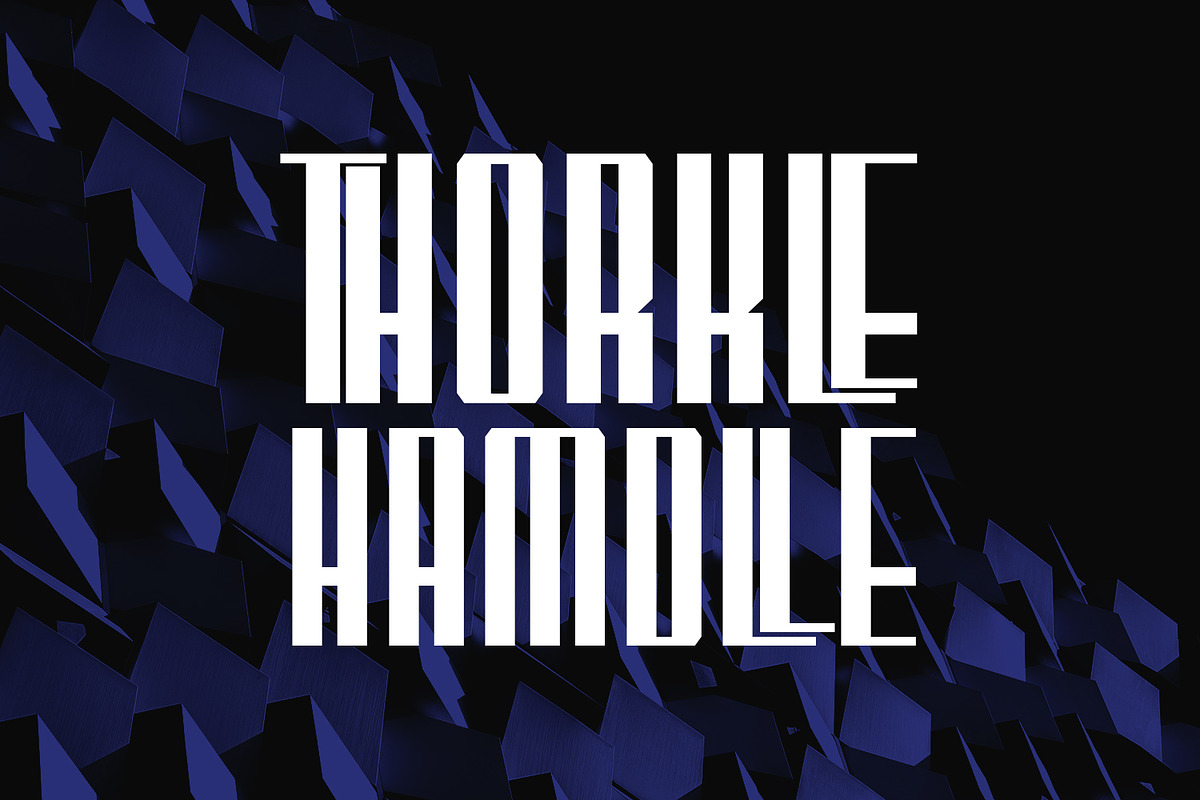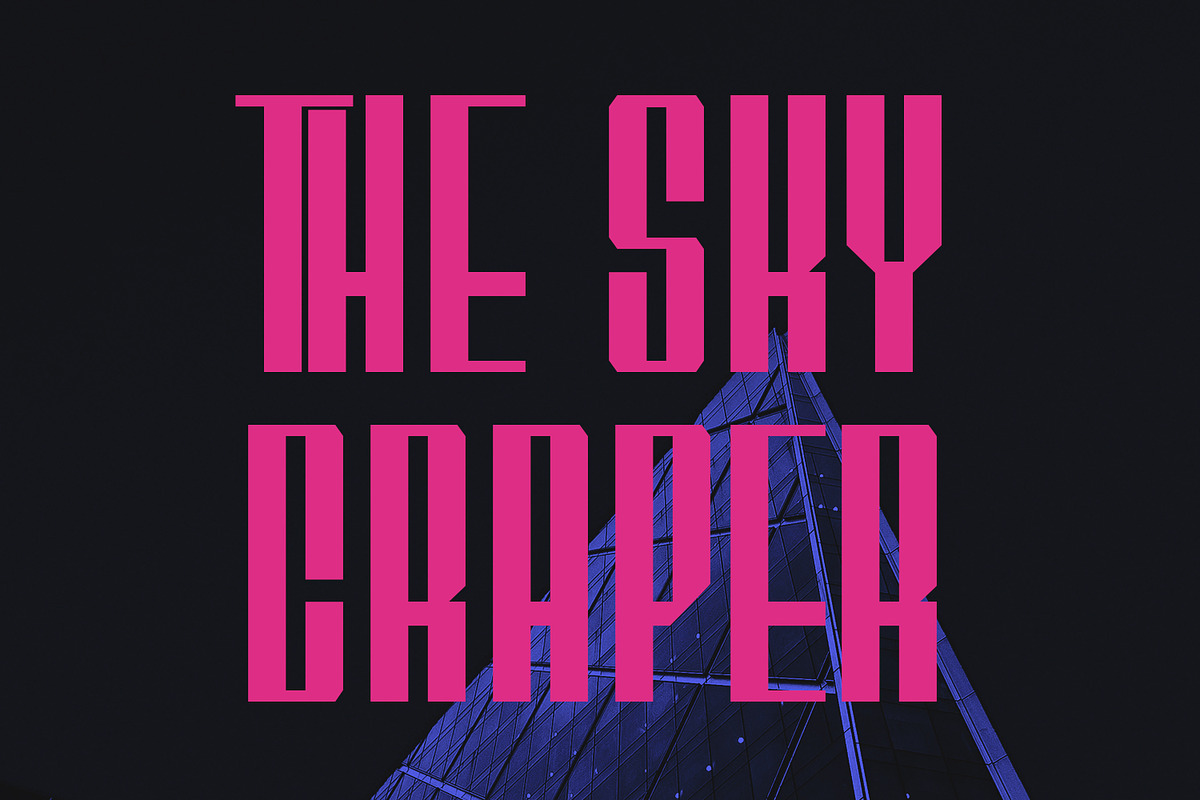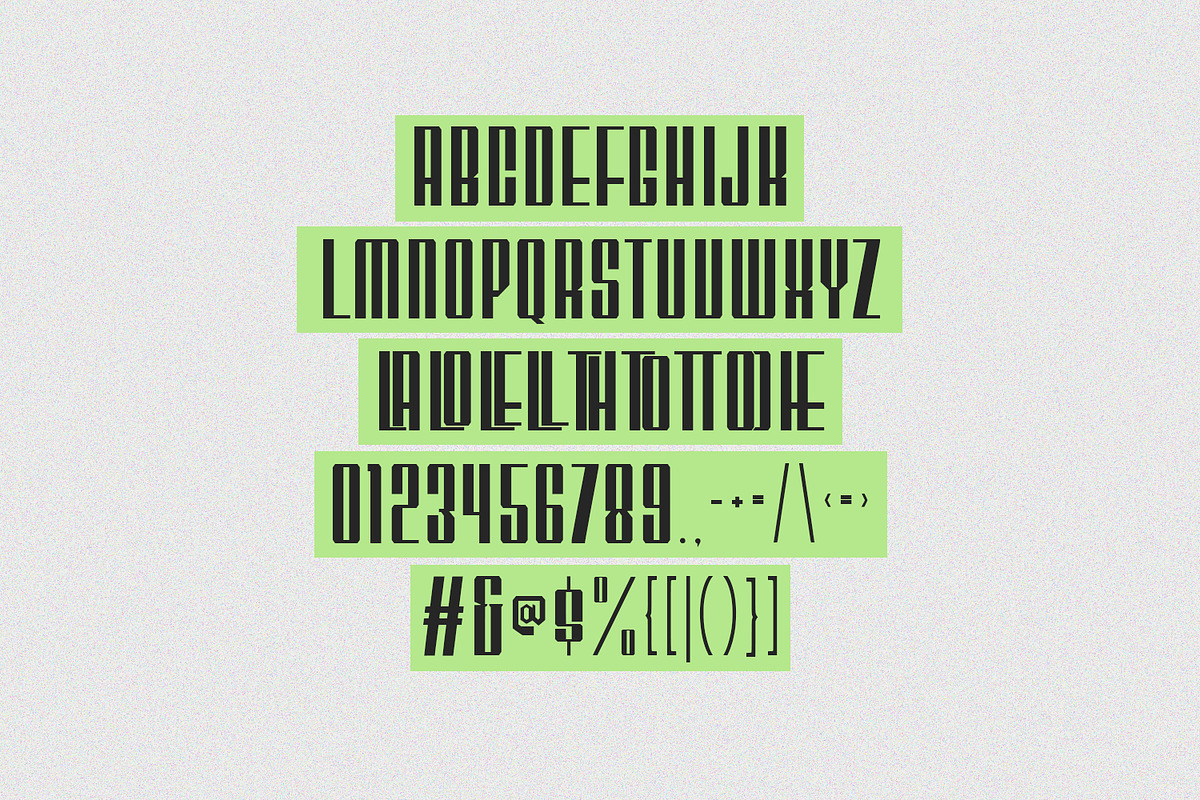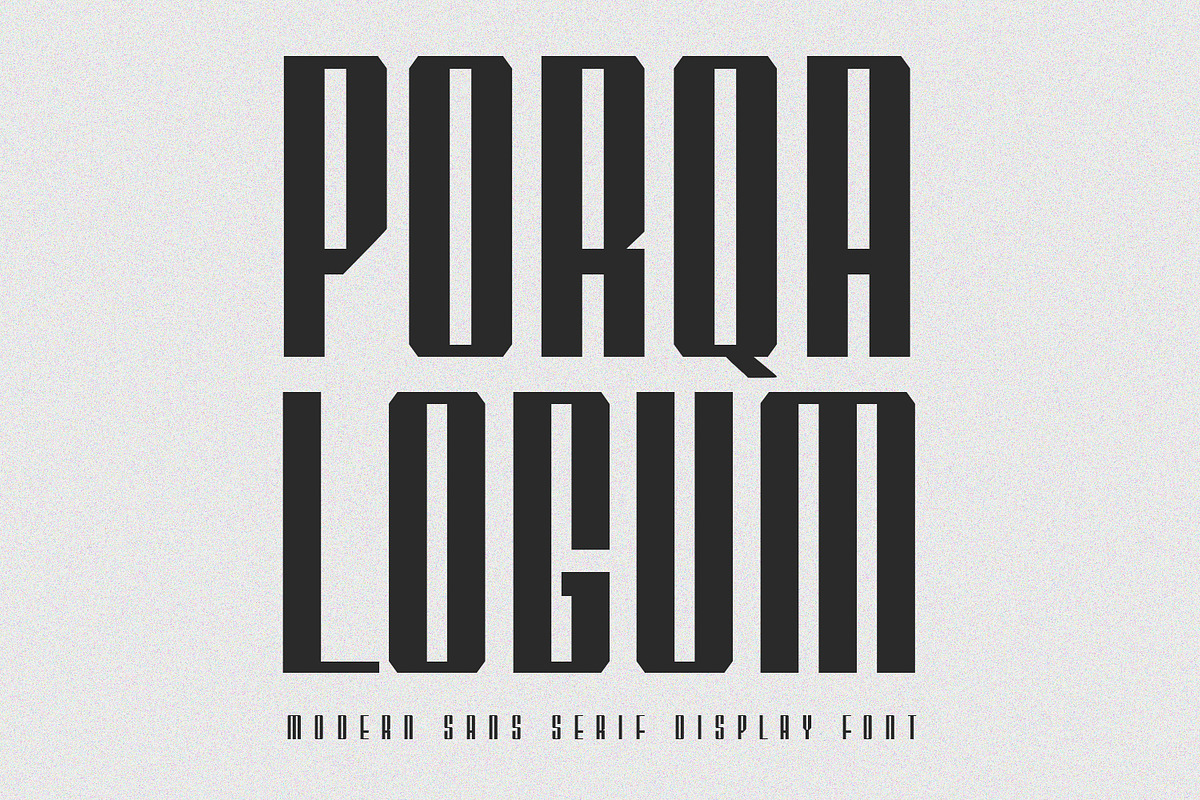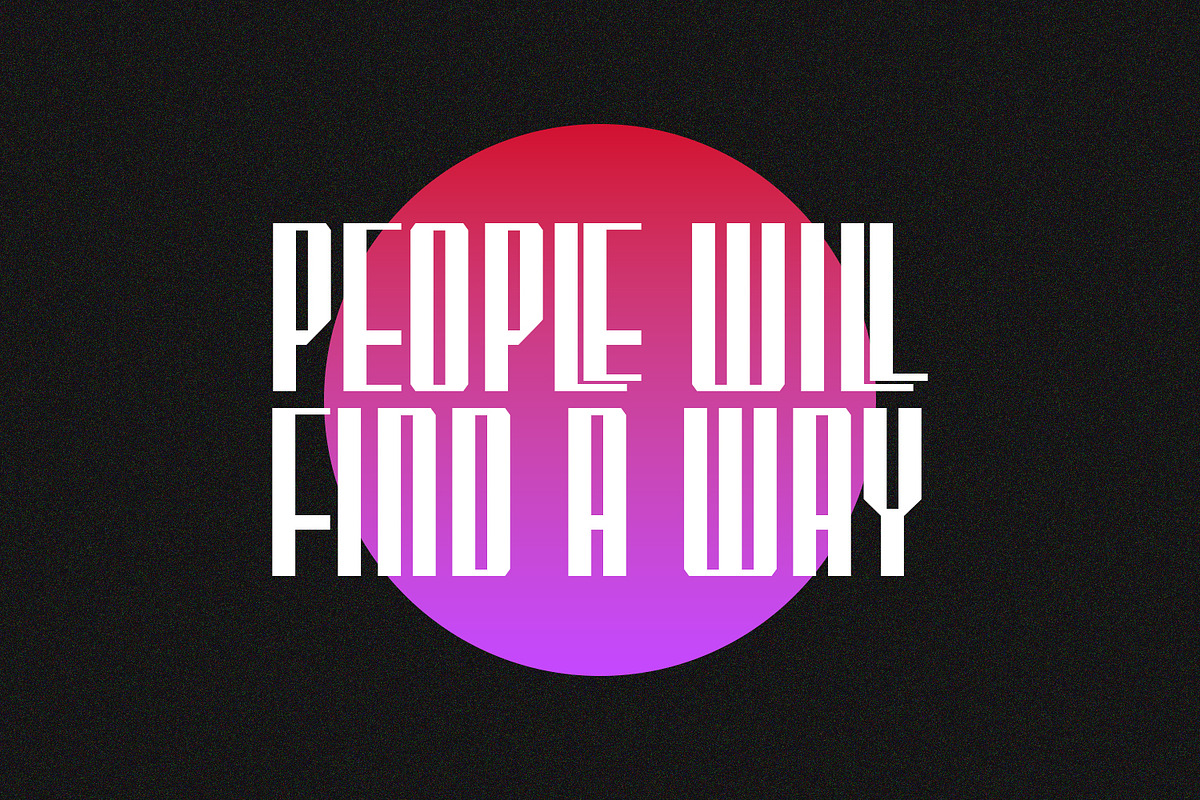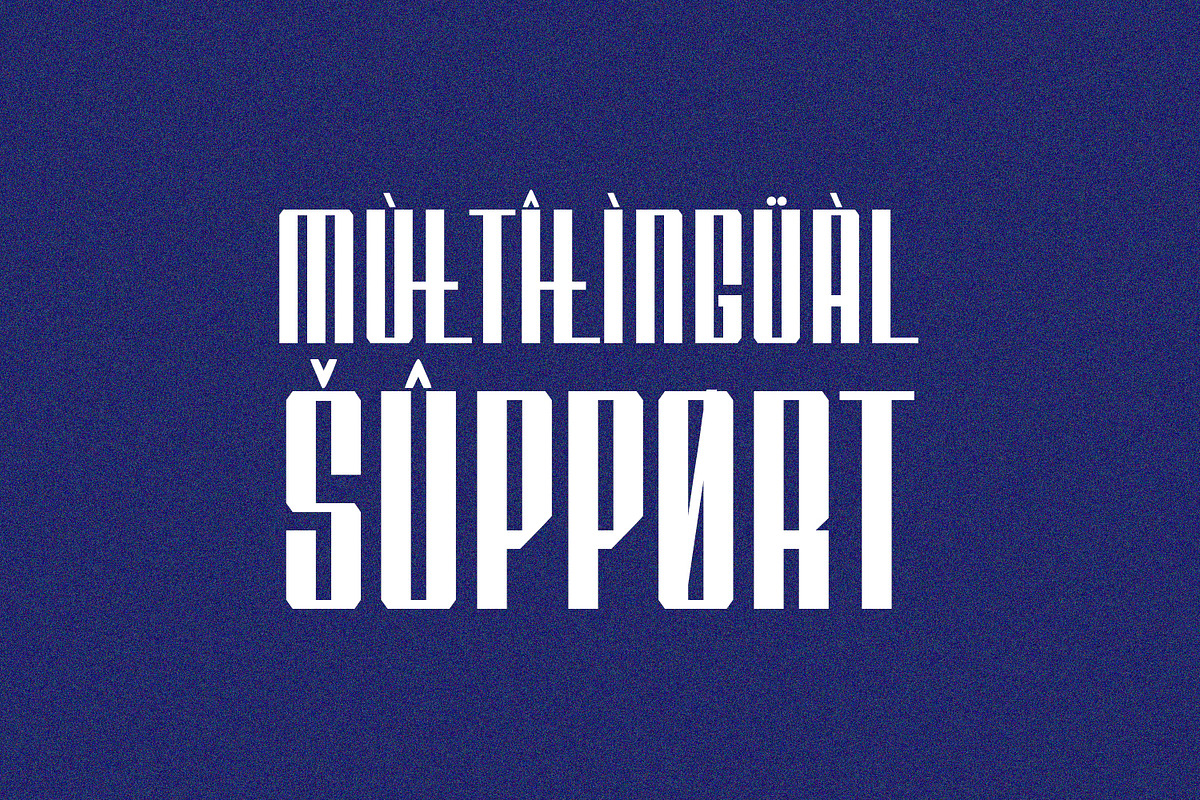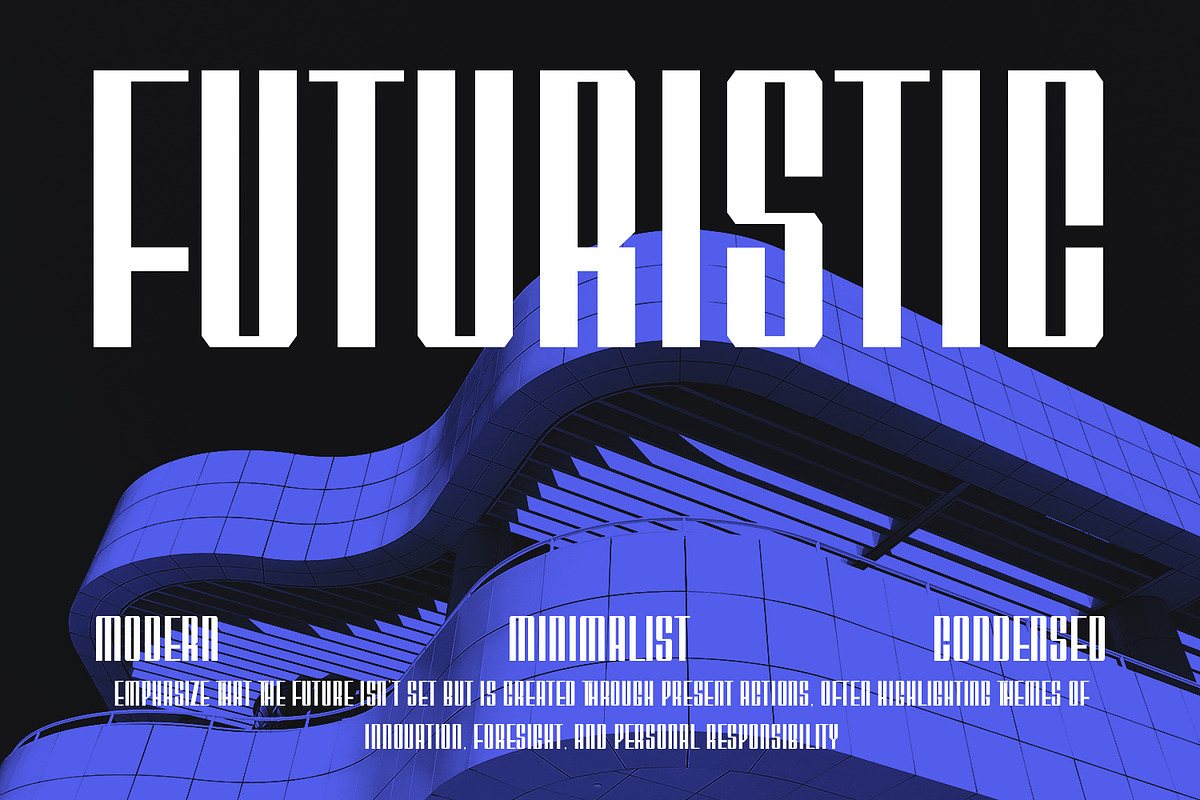
Porqa Logum Modern Sans Serif Font
Porqa Logum is a bold, modern, and highly condensed sans-serif display font that commands attention. Designed with a strong, futuristic aesthetic, it features tall, geometric forms and unique inner cuts, giving it a distinctive sci-fi, hi-tech, and minimal look.
This font is perfect for projects that require a powerful visual impact, such as movie titles, video game branding, posters, album covers, modern logos, and sophisticated magazine layouts. It includes full uppercase, multilingual support with special characters, and a comprehensive set of numbers and punctuation.
Porqa Logum is an excellent choice for designers aiming to convey themes of innovation, technology, architecture, and a bold, forward-looking perspective. Its clean yet impactful design makes it versatile for both digital and print media where a strong, minimalist statement is desired.
- Ligature Style